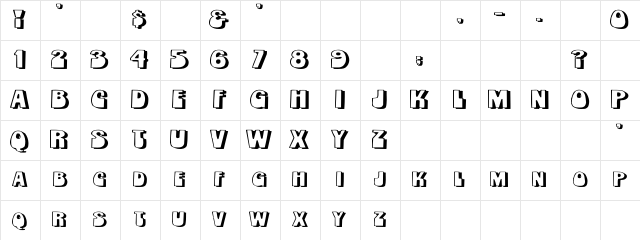
OrbitBold Regular Free Font
OrbitBold Regular
Design Context for OrbitBold
OrbitBold is a composed and adaptable typeface that performs quietly and consistently across a wide range of design contexts. Its bold stroke weight gives it real presence on the page.